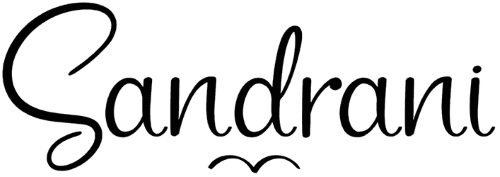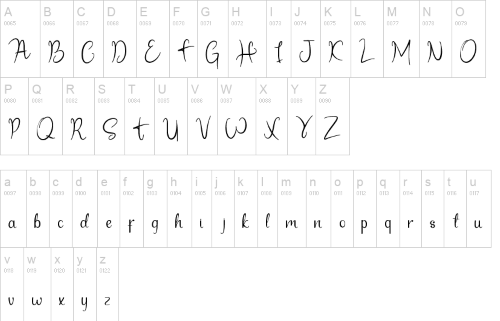
Sandrani Font
Sandrani Font is a stylish handwritten script typeface with smooth strokes and a natural, flowing rhythm. Its elegant yet casual character makes it ideal for logos, branding, invitations, quotes, and social media designs. Sandrani adds a warm, personal, and creative touch that feels both modern and expressive.
➤ Font Name: Sandrani
➤ Designer: Edric Studio
➤ Style: Script